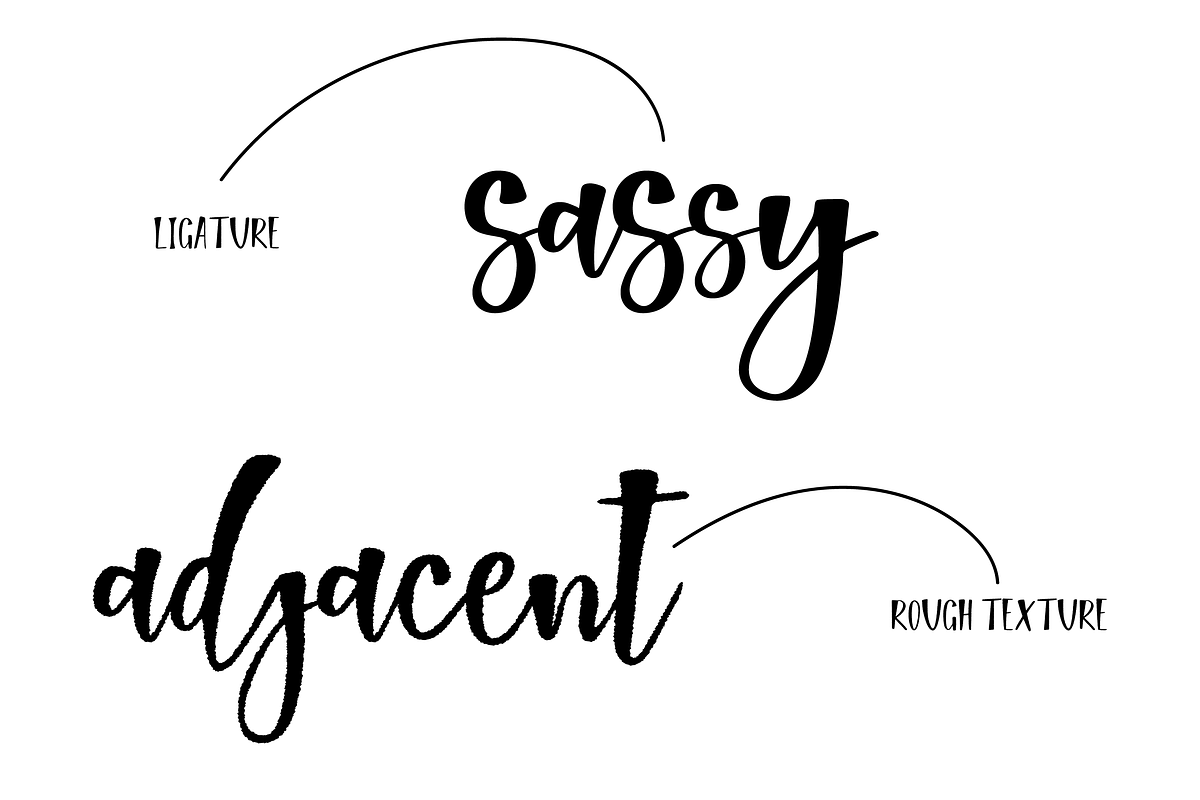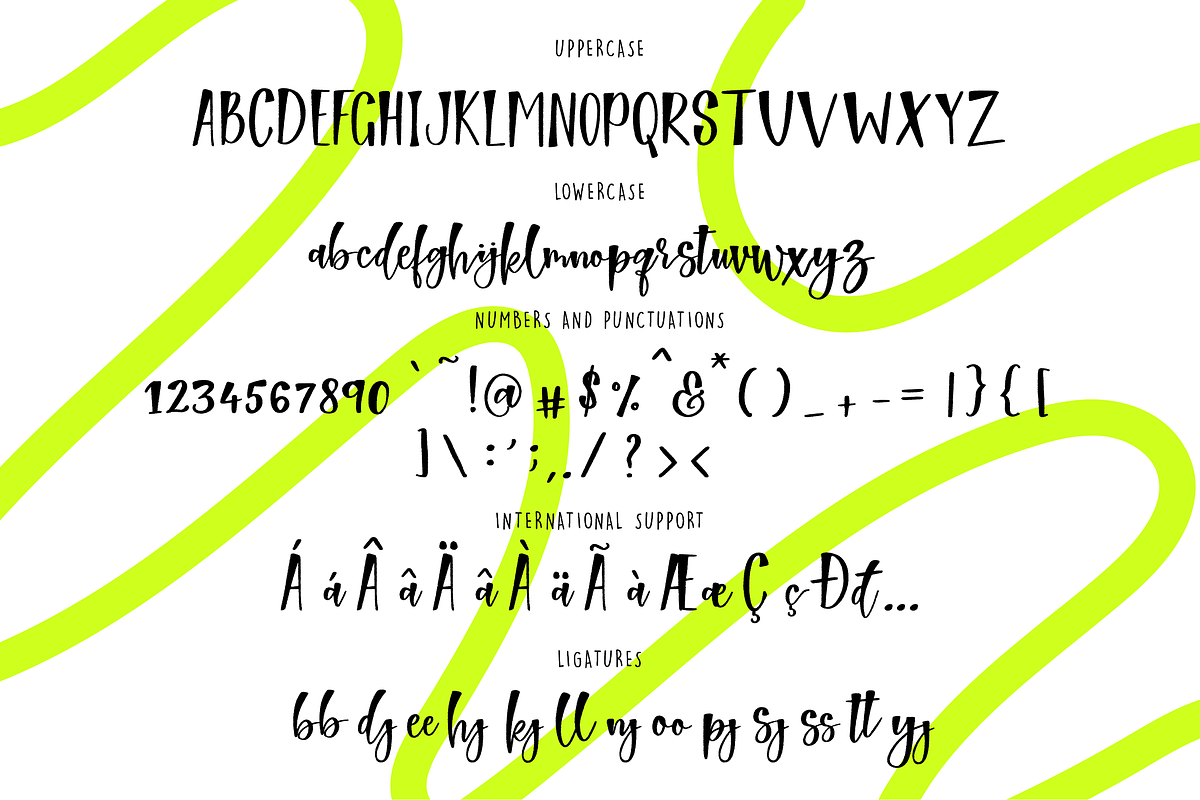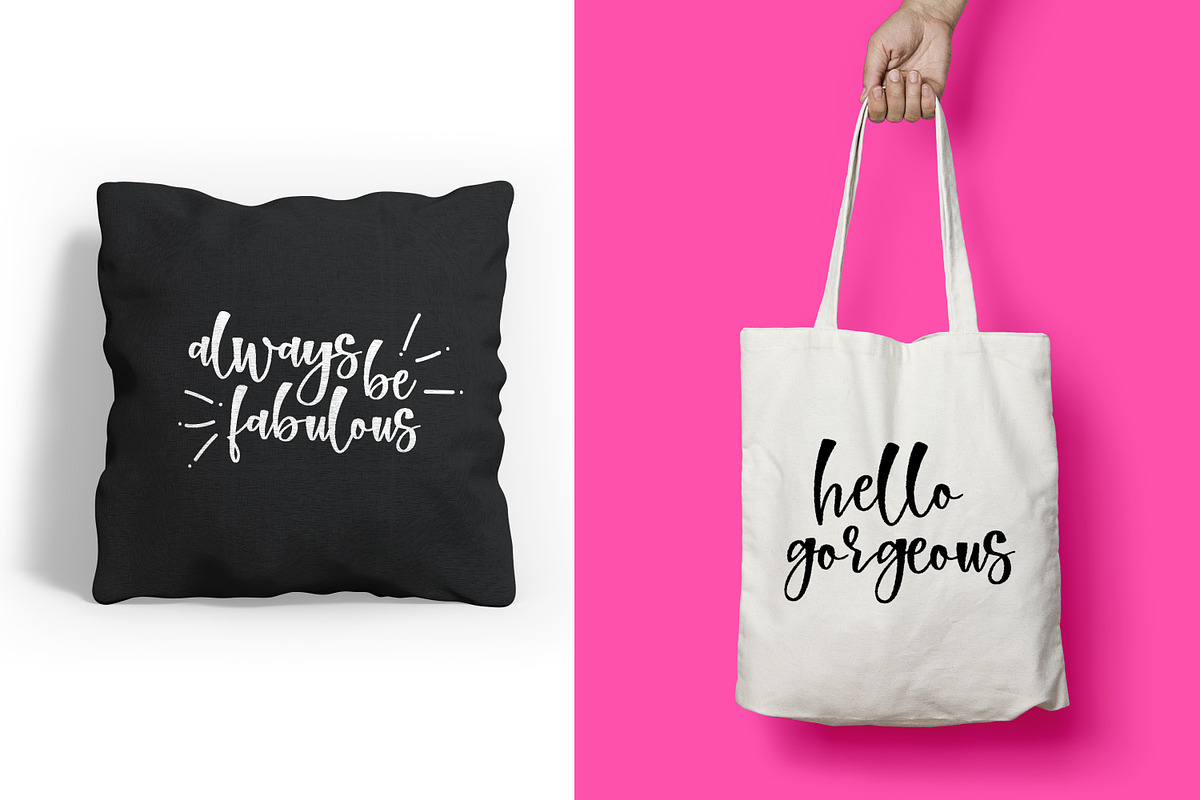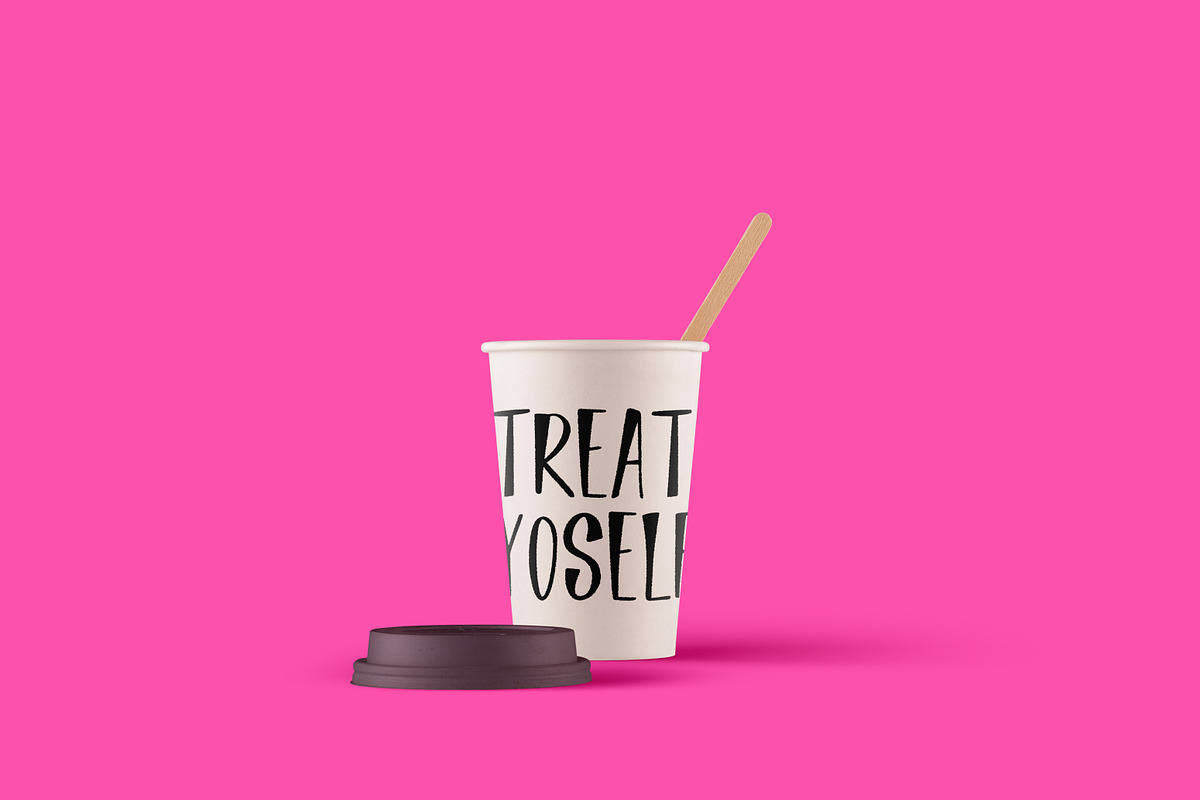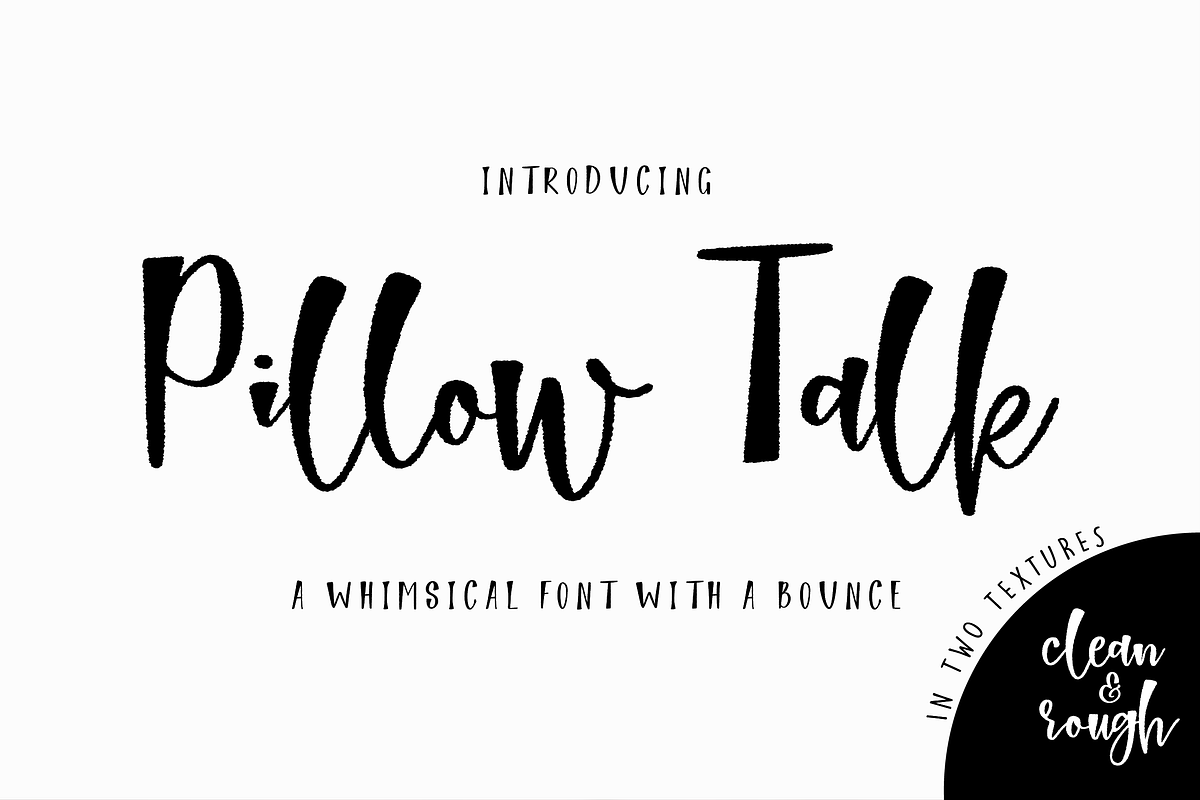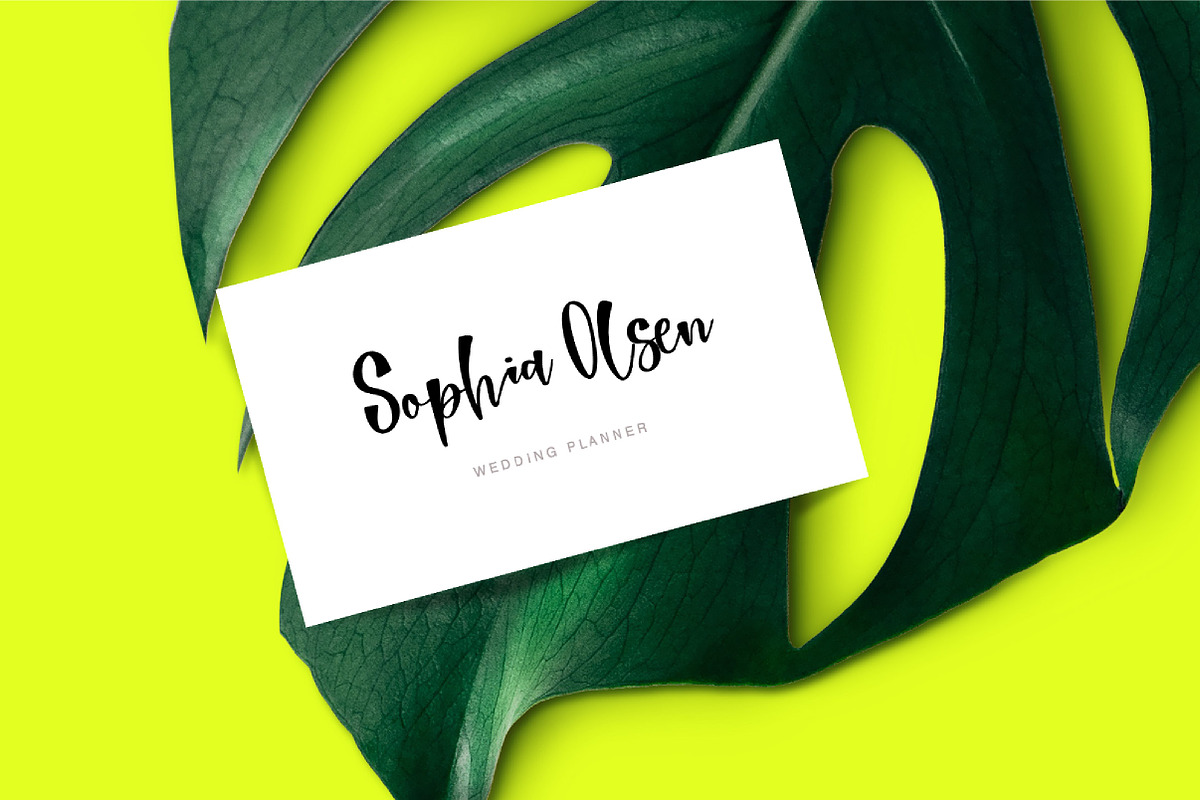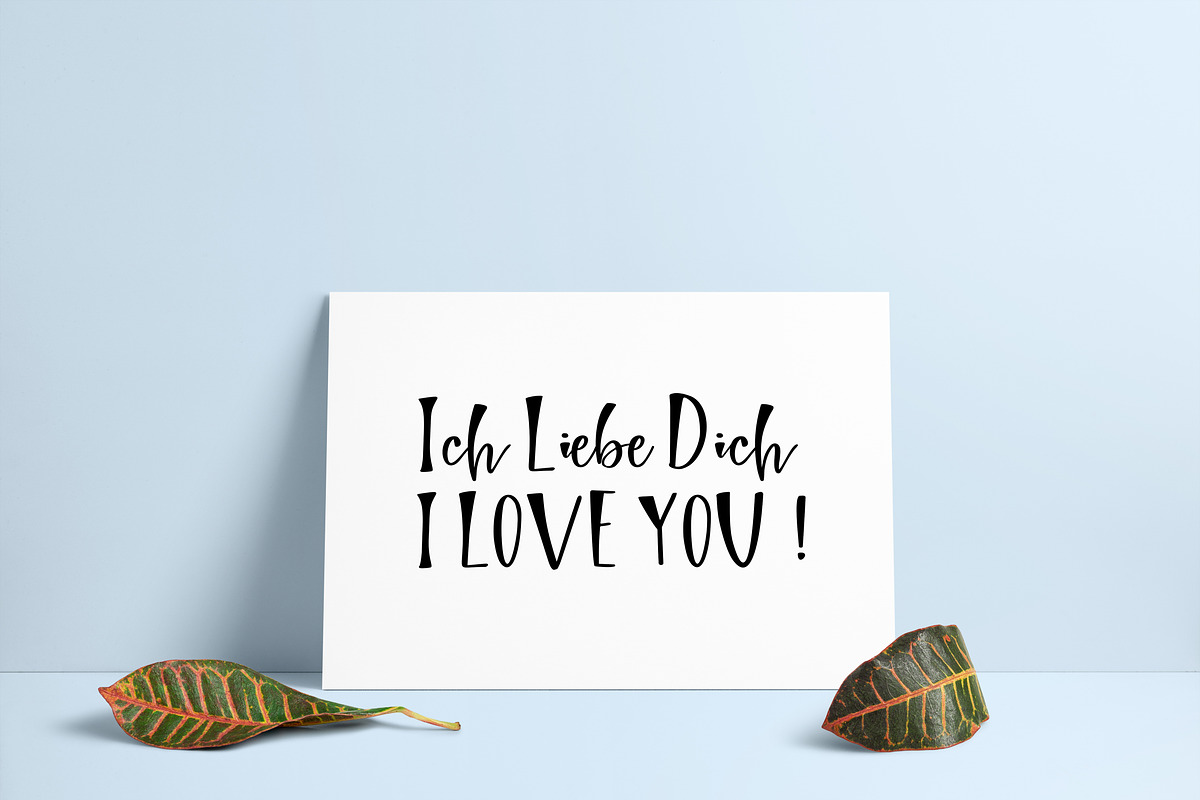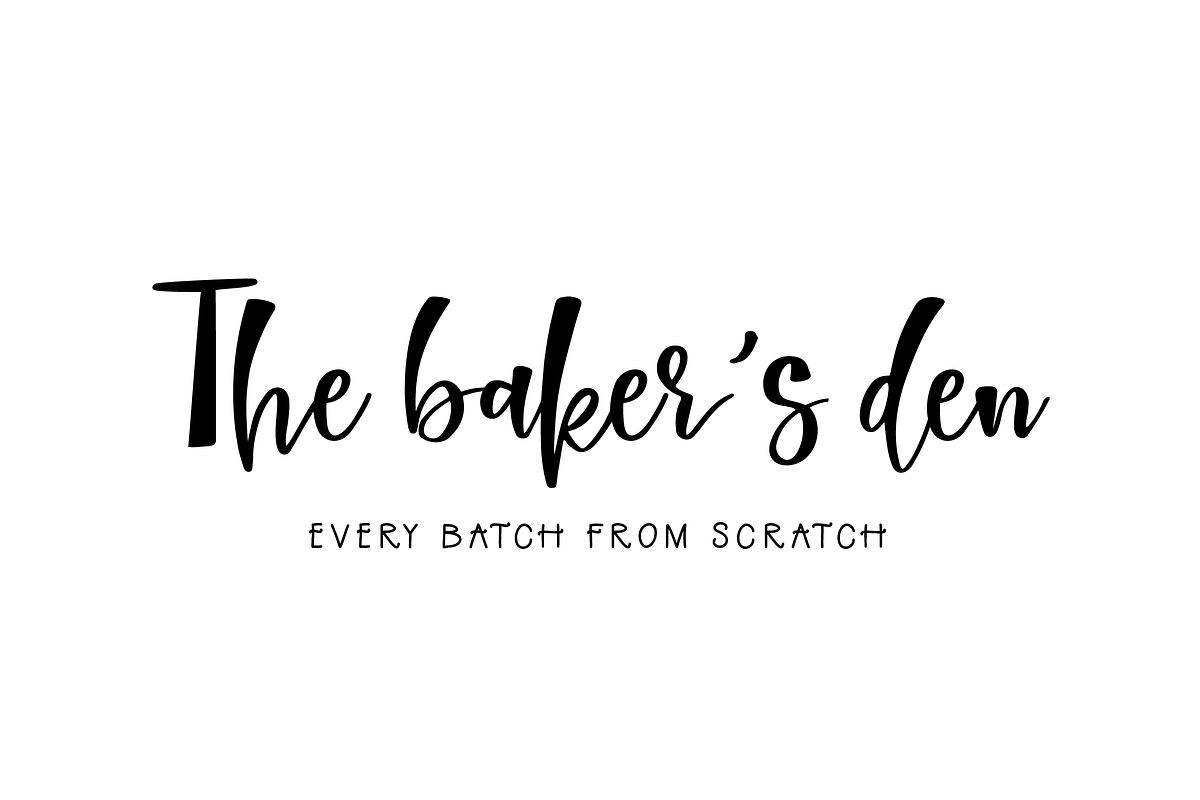
Pillow Talk Font
Meet Pillow Talk a modern whimsical font with a bounce!
Pillow Talk comes in two different textures, clean and rough. If you're looking for a quirky font for your designs, this is where your search ends.
Pillow talk is perfect for quotes, logos, branding projects like designing business cards, packaging projects, prints, and so much more!